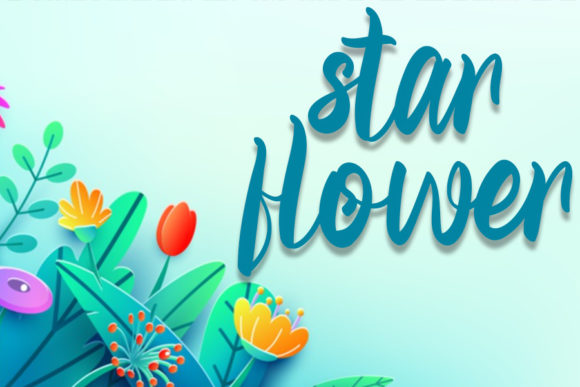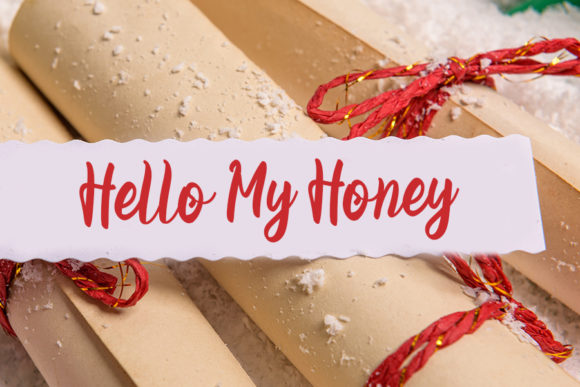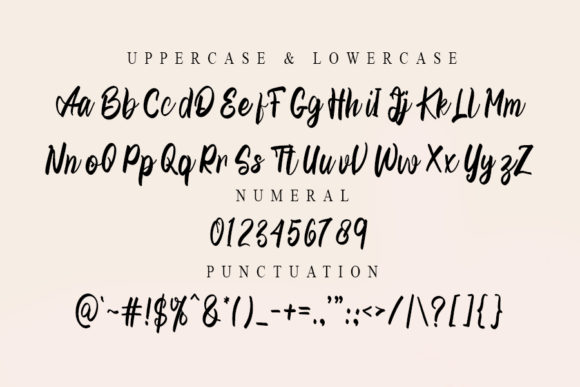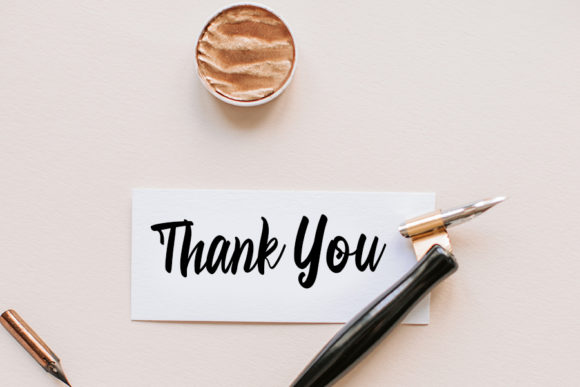
Introducing Christmas Wedding Font: A Timeless Handwritten Delight
Are you searching for a font that exudes warmth, love, and festivity? Look no further than the Christmas Wedding Font, a lovely and timeless handwritten font that is sure to make your designs shine. This beautiful font is perfect for creating eye-catching logos, branding, and quotes that will leave a lasting impression on your audience.
What Makes Christmas Wedding Font So Special?
Every letter in the Christmas Wedding Font has a unique and beautiful touch, which will make your design come alive! The font’s handwritten style gives it a personal and intimate feel, making it perfect for designs that require a touch of warmth and personality. Whether you’re creating a logo, branding materials, or social media graphics, this font is sure to add a special something to your designs.
Christmas Wedding Font is a versatile font that is perfect for designers and crafters alike. Its elegant and sophisticated style makes it ideal for a wide range of design projects, from wedding invitations and party decorations to branding materials and packaging. The font’s unique and beautiful touch will add a touch of personality to your designs, making them stand out from the crowd.
Key Features of Christmas Wedding Font
- Timeless Handwritten Style: The Christmas Wedding Font features a beautiful, timeless handwritten style that is perfect for creating eye-catching designs.
- Unique and Beautiful Touch: Every letter in the font has a unique and beautiful touch, making your designs truly special.
- Perfect for Logos and Branding: The font’s elegant and sophisticated style makes it perfect for creating logos and branding materials that will leave a lasting impression on your audience.
Tips for Using Christmas Wedding Font
Here are a few tips for using the Christmas Wedding Font in your designs:
- Use it for Headings and Titles: The Christmas Wedding Font is perfect for headings and titles, where its elegant and sophisticated style can really shine.
- Pair it with Other Fonts: The font pairs well with other fonts, making it easy to create beautiful and harmonious designs.
- Experiment with Different Sizes and Colors: Don’t be afraid to experiment with different sizes and colors to find the perfect look for your design.
In conclusion, the Christmas Wedding Font is a beautiful and timeless handwritten font that is perfect for designers and crafters alike. Its unique and beautiful touch makes it ideal for creating eye-catching logos, branding, and quotes that will leave a lasting impression on your audience. With its easy-to-use installation process and versatile style, this font is sure to become a favorite in your design toolkit.